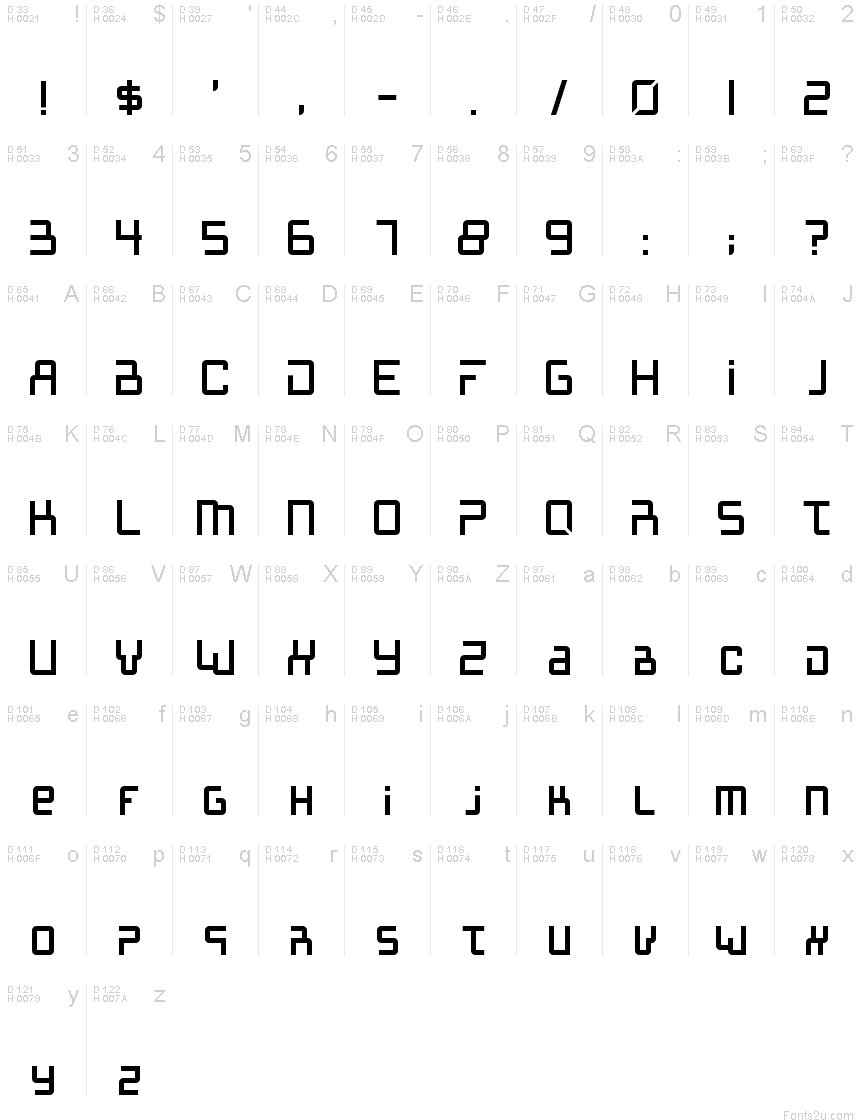
McAlberto by Murat Yegul is a free futuristic display font with tall, squared forms and a tightly engineered silhouette. Rounded outer corners meet abrupt right angles, and the narrow joins give several letters a segmented, machine-cut appearance.
A science-fiction game interface is its strongest setting, especially for title screens, control labels, and promotional graphics. The same industrial geometry suits electronic music posters and technology branding, linking those uses through lettering that resembles custom hardware markings rather than a conventional sans serif.